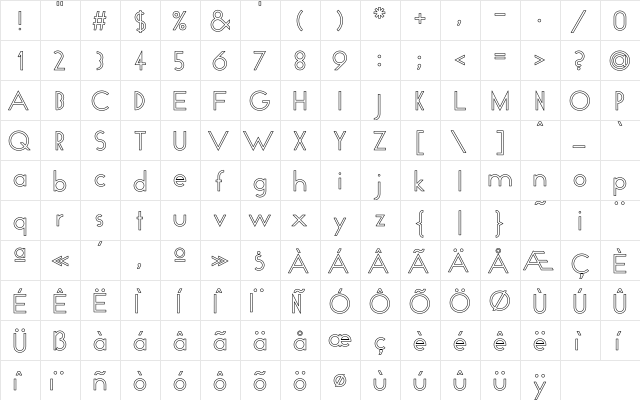
GeoPlain Hollow Regular
Design Context for GeoPlain Hollow Typeface
GeoPlain Hollow takes a measured approach to typography — its balanced proportions and neutral character make it a reliable workhorse for both digital and print work.